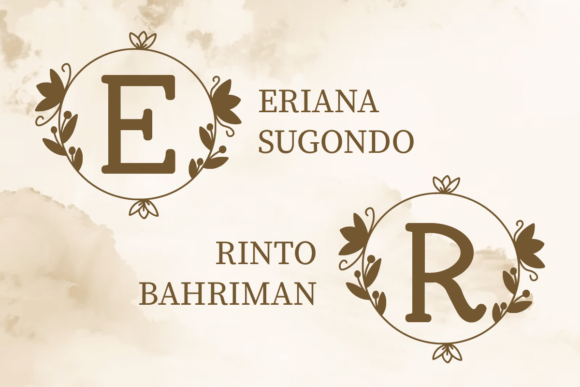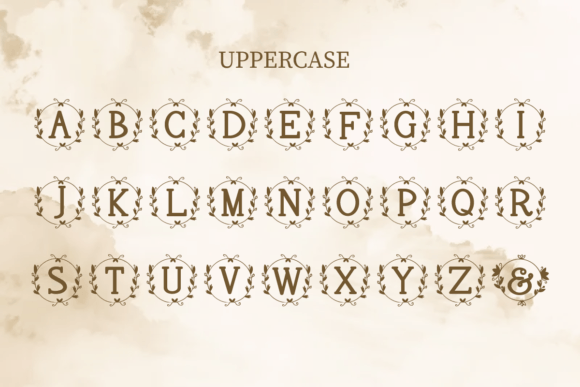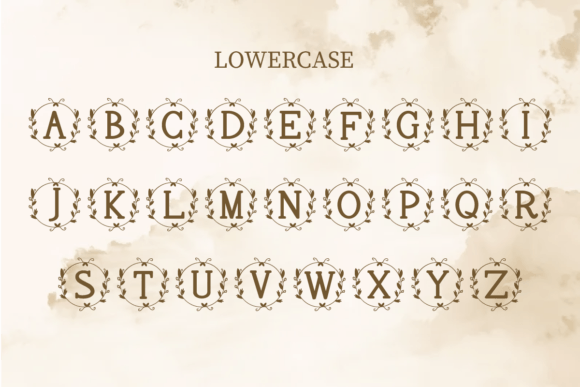
The Geranie Font: Elevate Your Designs with Elegance and Whimsy
I’ll never forget the time I was working on a wedding invitation project, and my client asked for a font that exuded elegance, sophistication, and a touch of whimsy. I scoured the internet, tried out countless fonts, but nothing seemed quite right. That was until I stumbled upon the Geranie Font. This beautiful monogram font with wreath decorations instantly captured my attention, and I knew I had found the perfect fit. In this article, I’ll share my experience with the Geranie Font, its features, and how to make the most of it in your designs.
A Personal Review of Geranie Font
- ✨ Elegant and sophisticated monogram designs with intricate wreath decorations
- ✅ Highly versatile and suitable for various design projects, including invitations, weddings, engagements, logos, and branding
- 💫 Beautifully crafted to add a touch of luxury and refinement to your designs
- 🎨 Comes with a range of OpenType features, glyphs, and stylistic alternates to enhance your creative possibilities
While the Geranie Font is an excellent choice for many design projects, there are a few things to keep in mind:
- ⚠️ Some users may find the font’s intricate designs and wreath decorations challenging to work with, especially when it comes to scaling or editing.
- 🤔 The font’s monogram style may not be suitable for all types of design projects, such as body text or long-form content.
The Story Behind Geranie Font
The Geranie Font was designed by a talented typographer who drew inspiration from traditional wreath-making techniques and classic monogram designs. The font’s creator aimed to craft a unique and elegant font that would add a touch of sophistication to various design projects. With its intricate wreath decorations and beautiful monogram designs, the Geranie Font has become a popular choice among designers and crafters.
| Font Name | Geranie Font |
| Author | CraftedType Studio |
| What type of designs is the Geranie Font best suited for? | The Geranie Font is ideal for designs that require elegance and sophistication, such as wedding invitations, engagement announcements, logos, and branding. |